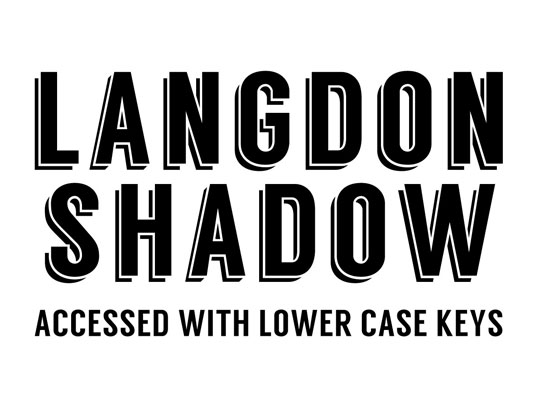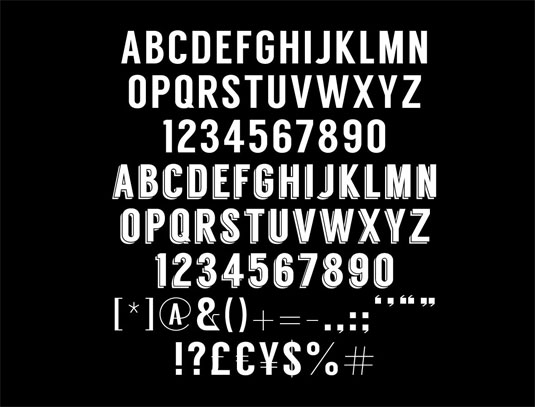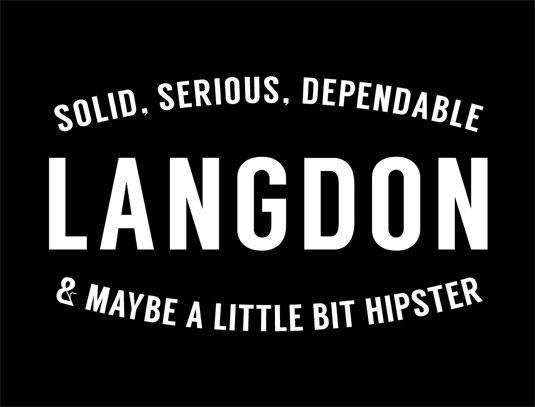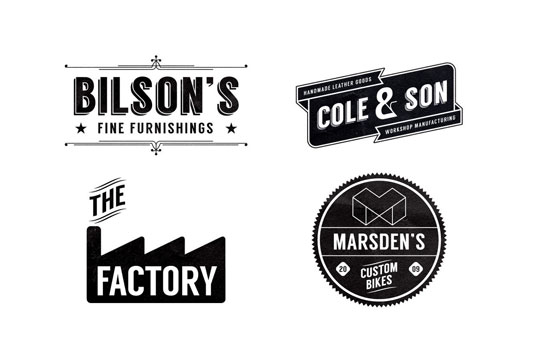
Get your creative hands on this brand-new, free font from graphic designer and typographer Steven Bonner.
'Langdon' is the new typeface from XLN Telecom. Working in partnership with Steven Bonner - a leading graphic designer, illustrator and typographer based in the UK - they developed a typeface that is solid, serious and dependable. Langdon is available as a free download and can be used privately and commercially with no restrictions on usage.
So, it may be a little hipster but what's the harm in that, eh? Take some time out from your busy schedule and have a play with this one. Perfect for headlines and branding projects, Langdon might just be your favourite new font.